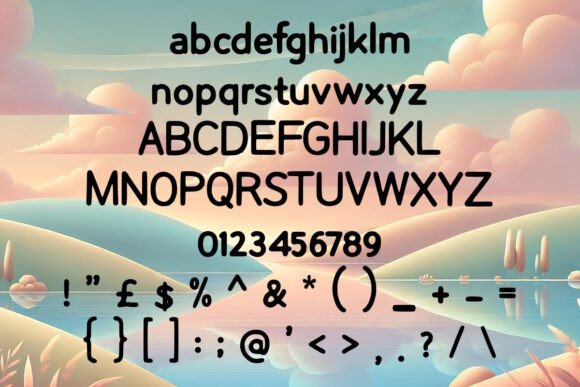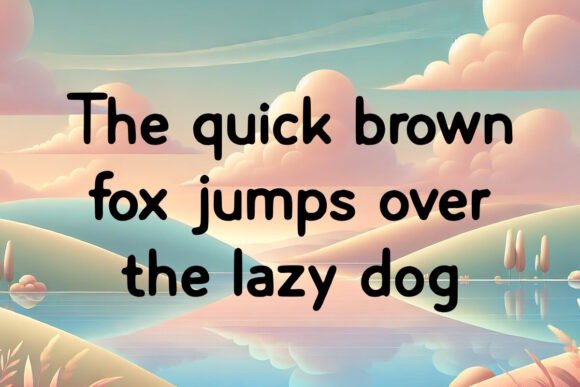
Introduction to Easy on the Eye Font
Say hello to Easy On The Eye, the font that’s as gentle on your design as a warm cup of tea on a lazy afternoon.
With its soft, rounded edges and effortless readability, this typeface is perfect for those who want their text to feel friendly, approachable, andβ€”wellβ€”easy on the eye Whether you’re crafting a cozy branding project, a heartwarming greeting card, or a polished presentation, this font delivers clarity with a side of charm.
Key Features of Easy on the Eye Font
Why Choose Easy on the Eye Font?
Easy on the Eye Font offers exceptional quality and versatility, making it a valuable addition to your design toolkit. Whether you’re creating for personal projects or commercial use, Easy on the Eye Font delivers professional results.